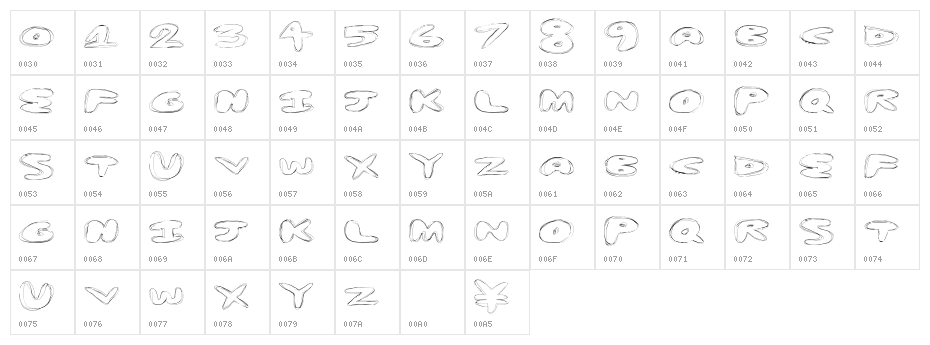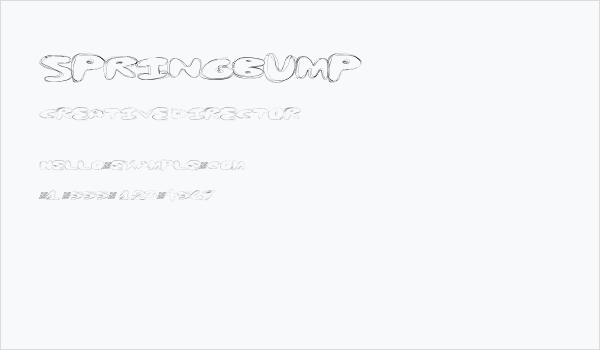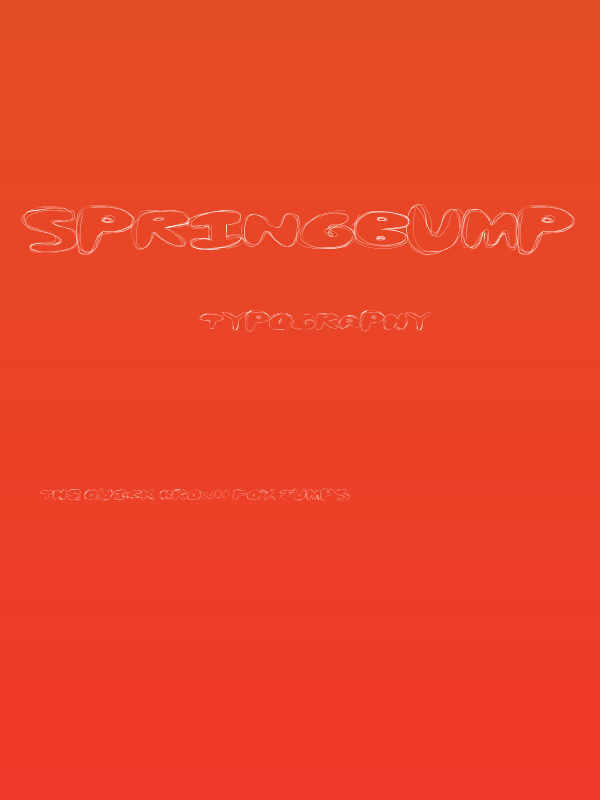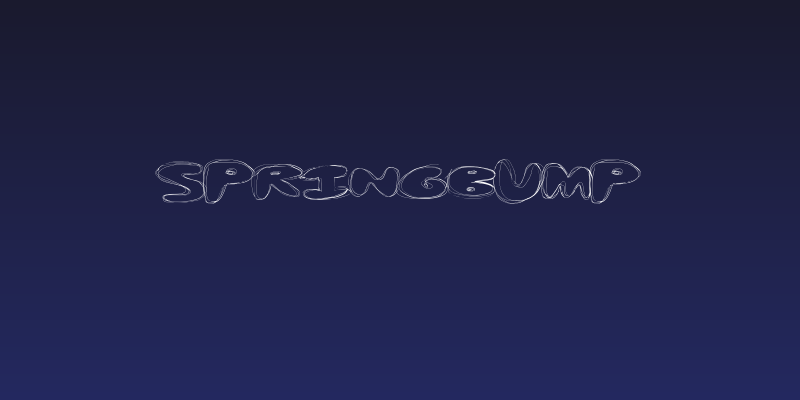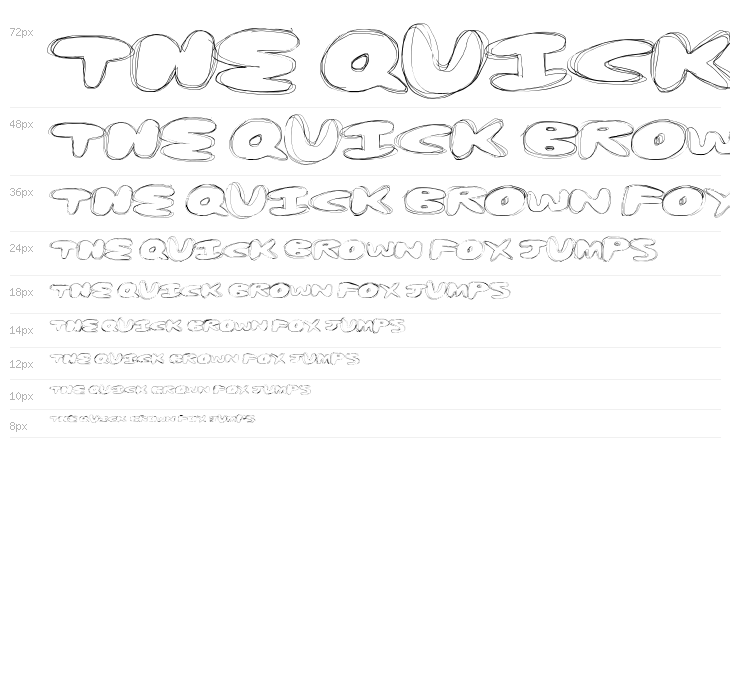
SpringBump Font
| カテゴリ | Cartoon |
| 全体的なスタイル | Playful, Whimsical |
| おすすめプロジェクト | Ideal for children's books, party invitations, playful branding, and creative posters. |